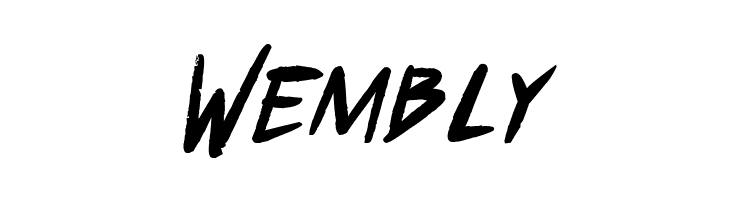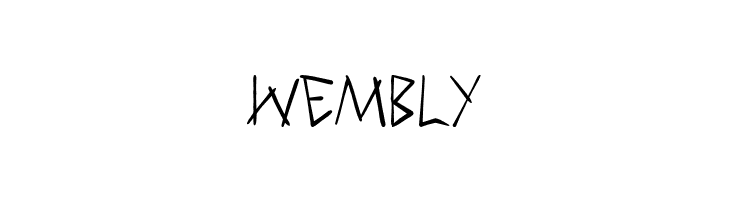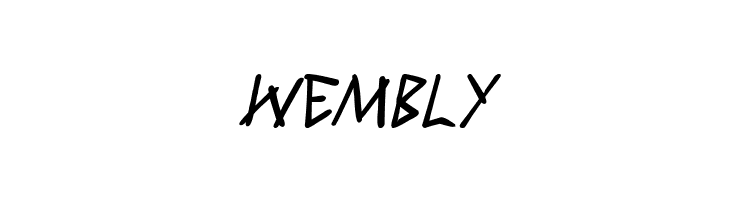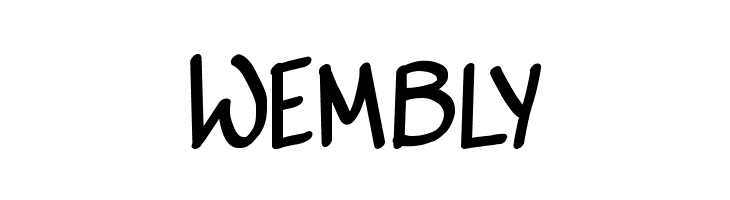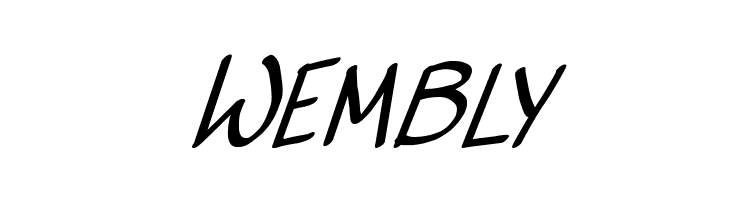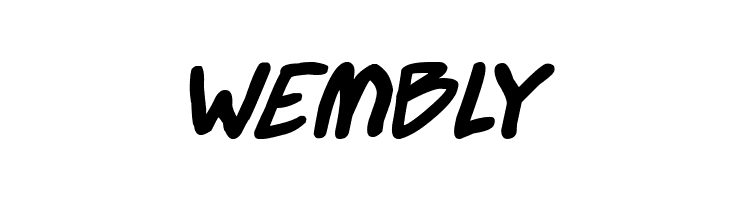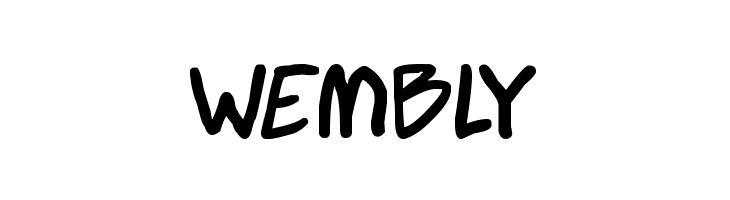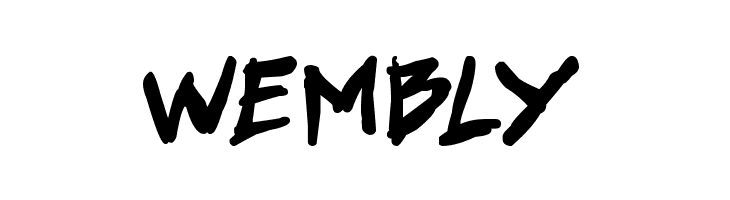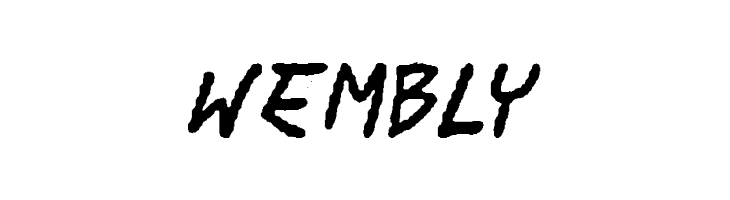
A bold, handwritten font with a playful and dynamic style.
A bold, playful font with a hand-drawn, energetic style.
A dynamic, handwritten-style font with an italicized, modern look.
An italicized, handwritten font with a dynamic and fluid style.
A rugged, hand-drawn font with a pirate-themed, adventurous style.
A playful, hand-drawn style font with bold, rounded characters.
A bold, hand-drawn font with a comic book style and dynamic character.
A bold, italicized handwritten font with a playful and dynamic style.
A playful, hand-drawn style font with bold, irregular characters.
A lively, handwritten font with fluid, expressive strokes.
A bold, hand-drawn font with sharp, angular strokes and a dynamic, energetic style.
A bold, italicized font with sharp, angular strokes and dynamic energy.
A bold, italicized, handwritten font with an edgy, dynamic style.
A rugged, hand-drawn font with sharp, angular lines and an edgy aesthetic.
A playful, hand-drawn font with bold, dynamic strokes.